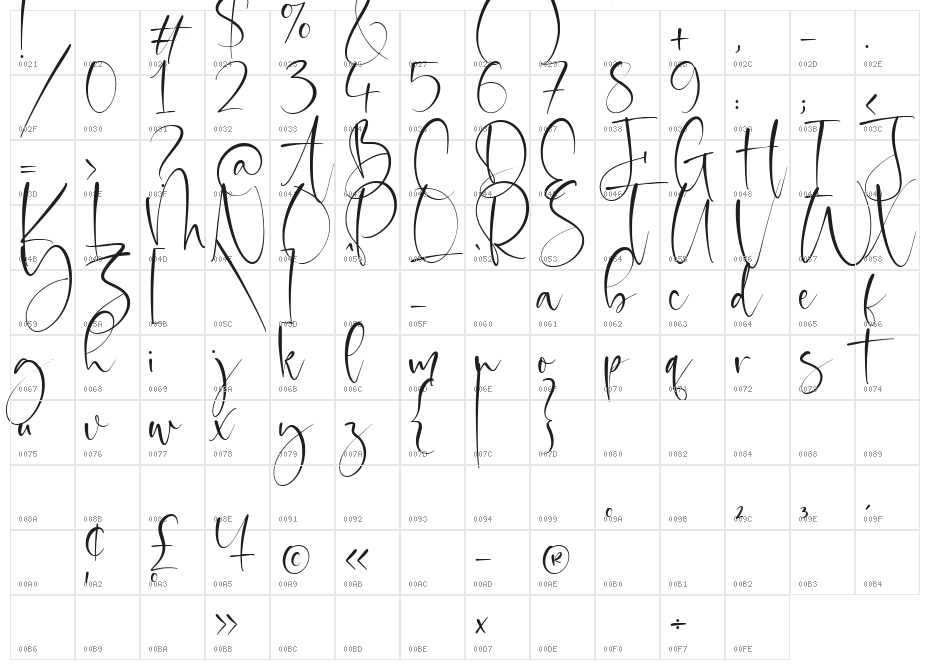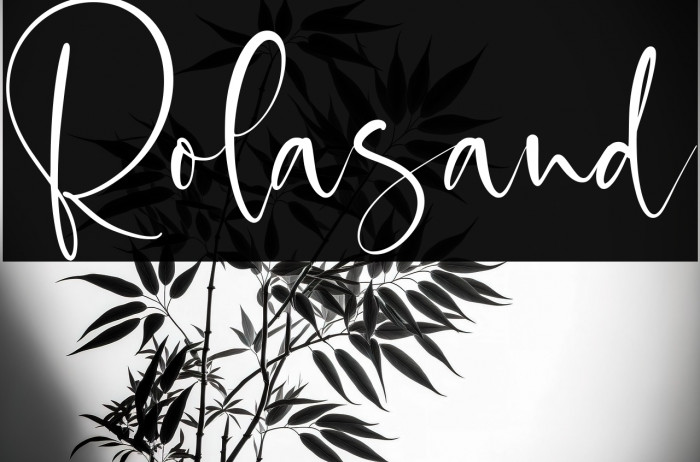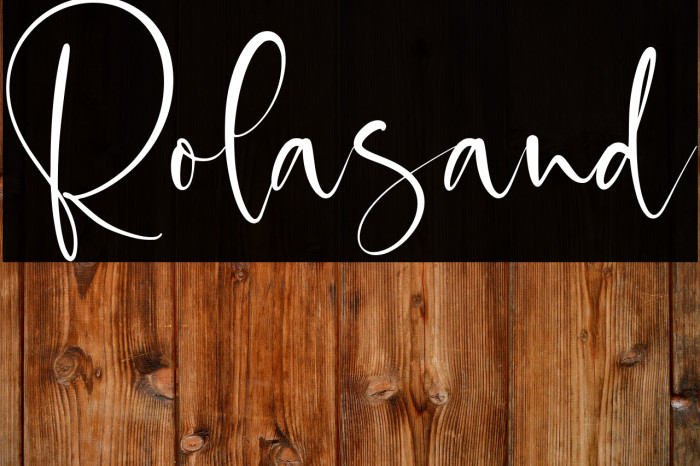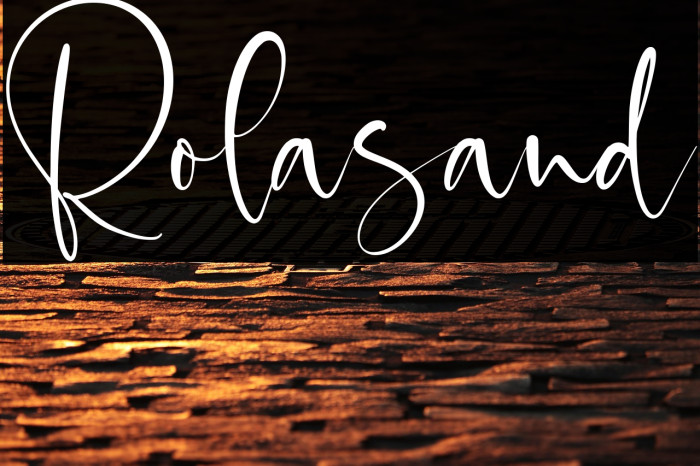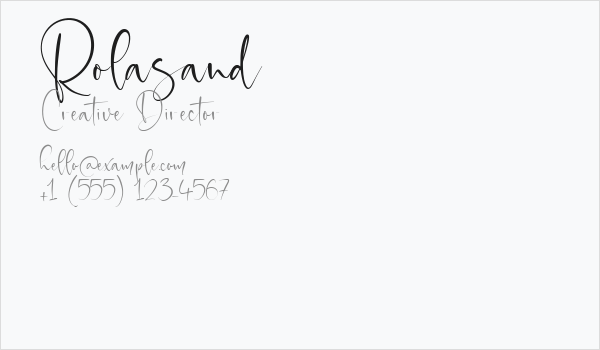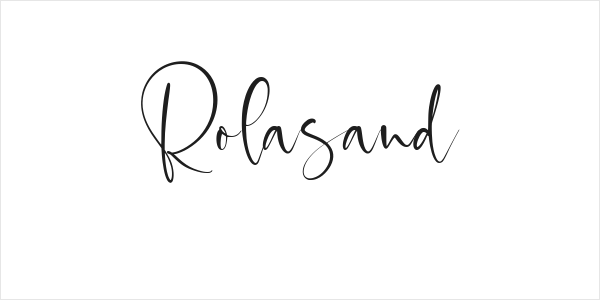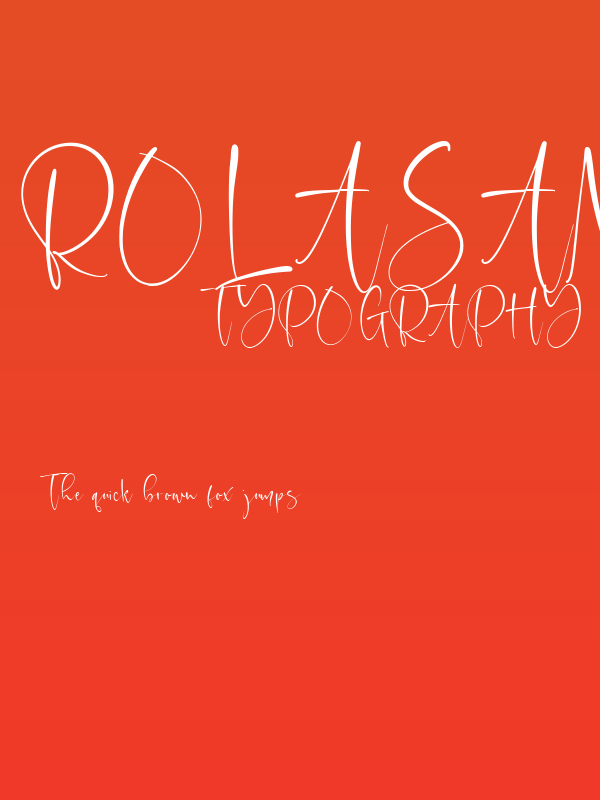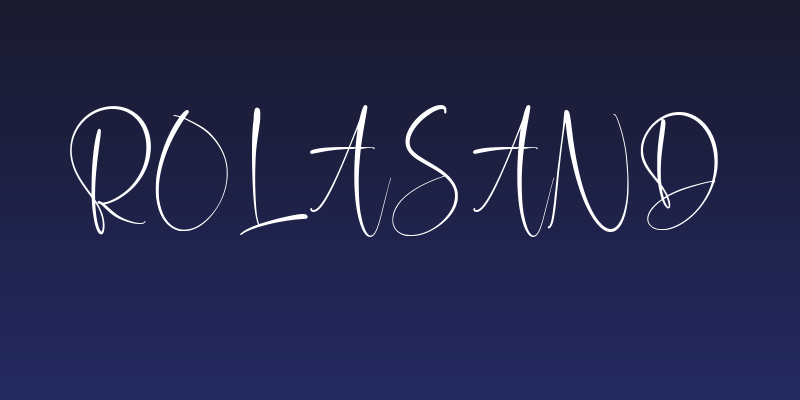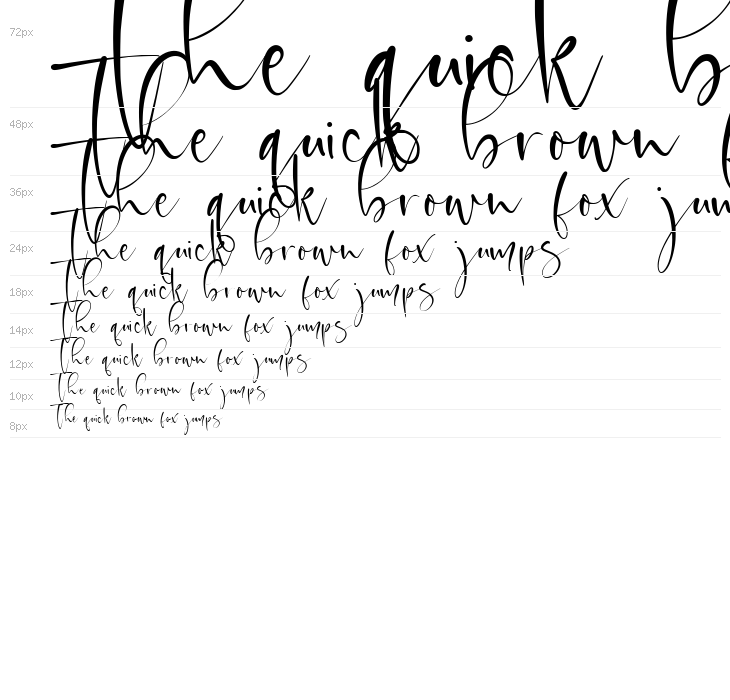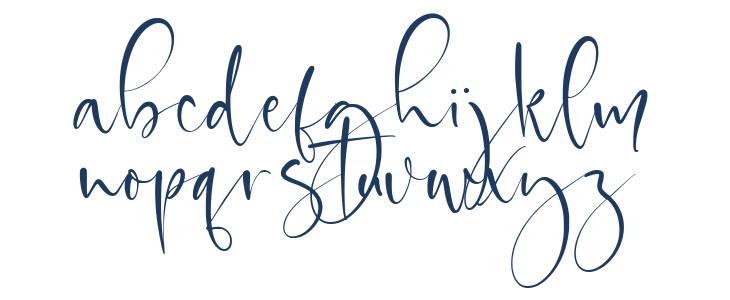
Rolasand Font
Rolasand Description
This font features a flowing, handwritten style with elegant curves and loops, giving it a sophisticated and artistic appearance. The uppercase letters are tall and slender, with a slight slant that adds to the dynamic feel. Lowercase letters are more varied in height, with some characters extending below the baseline, enhancing the script-like quality. The numbers are consistent with the overall style, maintaining the same fluidity and grace. Special characters are creatively integrated, complementing the font's aesthetic. This font exudes a sense of elegance and creativity, making it suitable for projects that require a personal and artistic touch.
| Overall Style | Elegant, Artistic |
| Proposed Projects | Ideal for wedding invitations, greeting cards, personal branding, and artistic projects. |